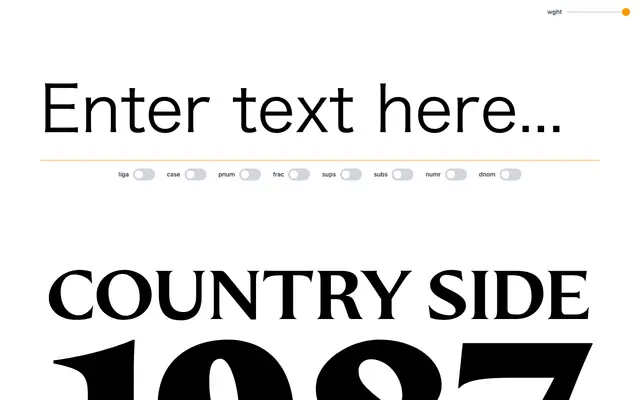
A free geometric sans-serif from Japanese foundry Dot Colon, released under the SIL Open Font License with broad Latin Extended character support.
A clean, minimal geometric sans with a single weight and a variable font axis for weight adjustment. The character set covers Latin Extended, including a wide range of diacritics for Central and Northern European languages, alongside standard punctuation, currency symbols and mathematical characters. Released freely under the SIL Open Font License, permitting modification and redistribution without restriction.
The letterforms show clean, geometric construction with open apertures and a restrained, modern quality typical of geometric sans-serif designs. No overt humanist or grotesque characteristics are evident from the glyph set.